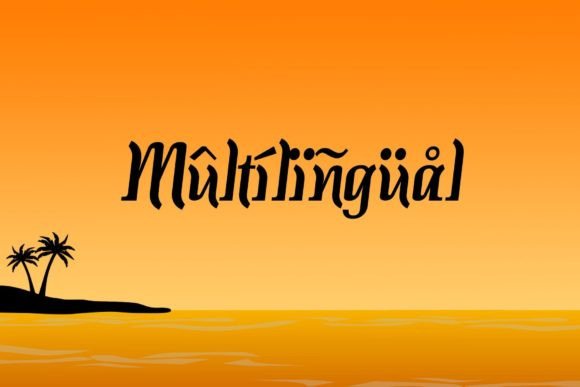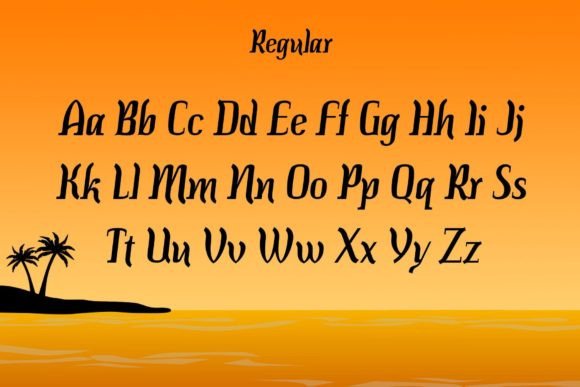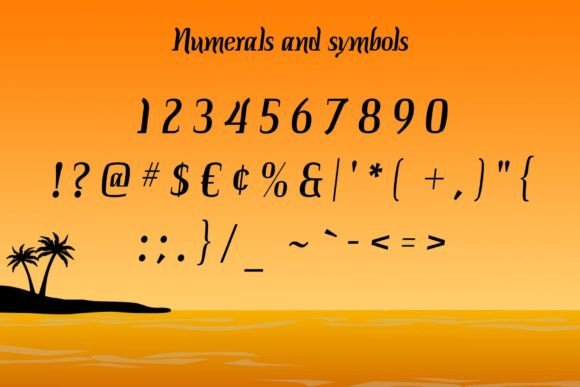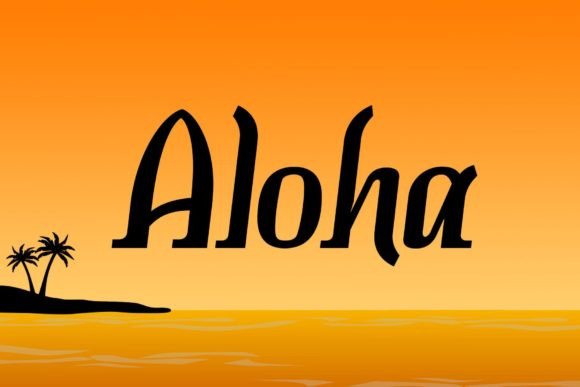
Aloha Font: The Perfect Blend of Laid-Back and Fun for Your Design Projects
Are you tired of using the same old fonts for your design projects? Look no further than the Aloha font, a laid-back and fun display font that’s perfect for adding a touch of personality to your work. With its casual and natural character, Aloha is suitable for a wide spectrum of applications, from crafting eye-catching headlines to creating engaging social media graphics.
The Characteristics of Aloha Font
Aloha font is a display font that’s designed to make a statement. Its casual and relaxed vibe makes it perfect for designs that require a friendly and approachable feel. The font features:
- Unique letterforms: Each letter in the Aloha font has a distinct and quirky feel, making it perfect for adding a touch of personality to your designs.
- Natural and effortless look: The font’s natural and effortless look makes it suitable for designs that require a laid-back and casual feel.
- High legibility: Despite its casual nature, the Aloha font remains highly legible, making it perfect for use in a variety of applications, from headlines to body text.
Uses of Aloha Font
The Aloha font is versatile and can be used in a wide range of applications, including:
- Headlines and titles: The font’s bold and attention-grabbing nature makes it perfect for use in headlines and titles.
- Social media graphics: Add a touch of personality to your social media graphics with the Aloha font, making them stand out in a crowded feed.
- Logos and branding: The font’s unique and quirky feel makes it perfect for use in logos and branding materials, helping to create a memorable and distinctive brand identity.
- Invitations and announcements: The Aloha font’s casual and natural feel makes it suitable for use in invitations and announcements, adding a touch of warmth and personality to your designs.
Why Designers and Crafters Love Aloha Font
Designers and crafters love the Aloha font for its unique blend of style and functionality. Here are just a few reasons why:
- Easy to read: Despite its casual nature, the Aloha font remains highly legible, making it perfect for use in a variety of applications.
- Highly versatile: The font’s versatility makes it suitable for use in a wide range of applications, from headlines to body text.
- Adds personality to designs: The Aloha font’s unique and quirky feel adds a touch of personality to designs, making them stand out in a crowded marketplace.
Tips for Using Aloha Font
Here are a few tips for getting the most out of the Aloha font:
- Use it sparingly: The Aloha font is bold and attention-grabbing, so use it sparingly to avoid overwhelming your designs.
- Pair it with other fonts: The Aloha font pairs well with other fonts, so experiment with different combinations to find the perfect look for your designs.
- Experiment with colors: The Aloha font looks great in a variety of colors, so don’t be afraid to experiment and find the perfect hue for your designs.
The Aloha font is a laid-back and fun display font that’s perfect for adding a touch of personality to your design projects. With its casual and natural character, Aloha is suitable for a wide spectrum of applications, from crafting eye-catching headlines to creating engaging social media graphics. Whether you’re a designer or crafter, the Aloha font is a great addition to your toolkit, offering a unique blend of style and functionality that’s sure to take your designs to the next level.